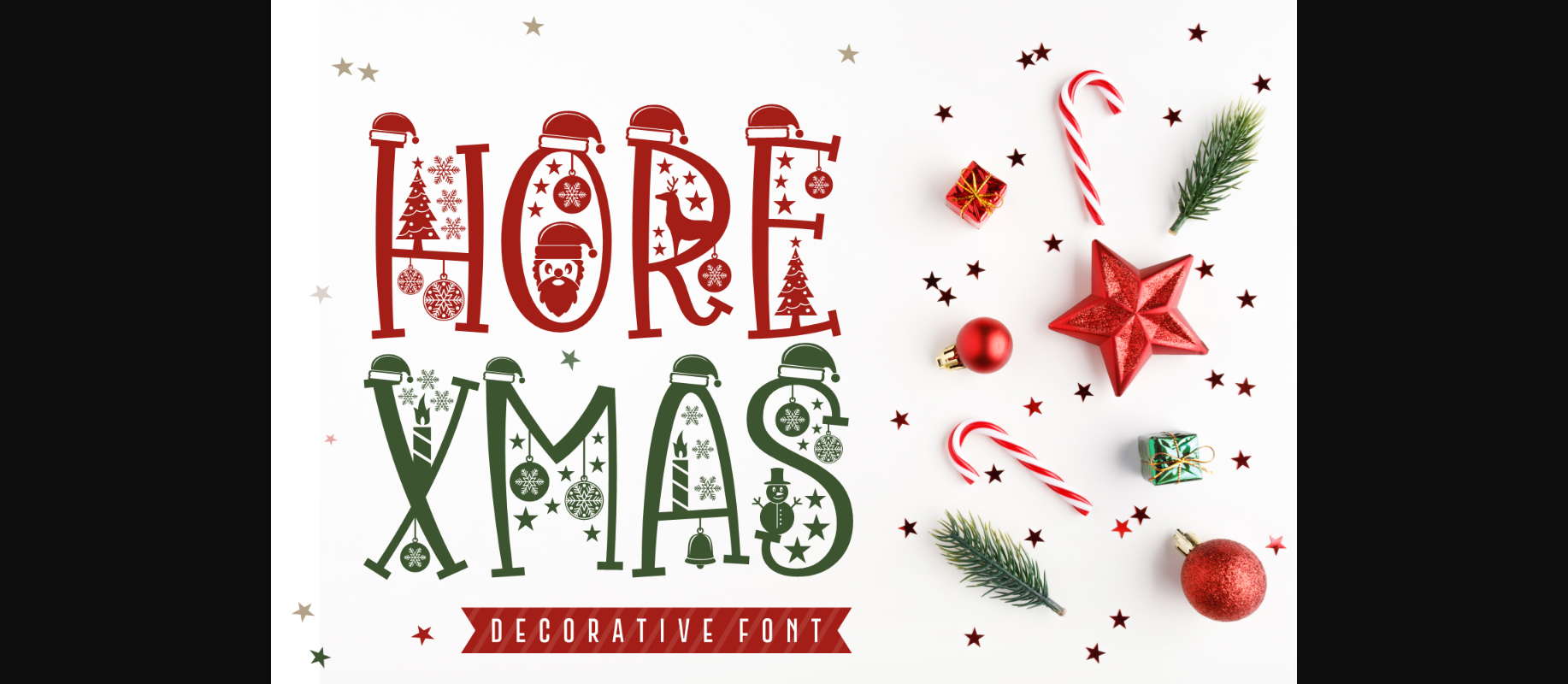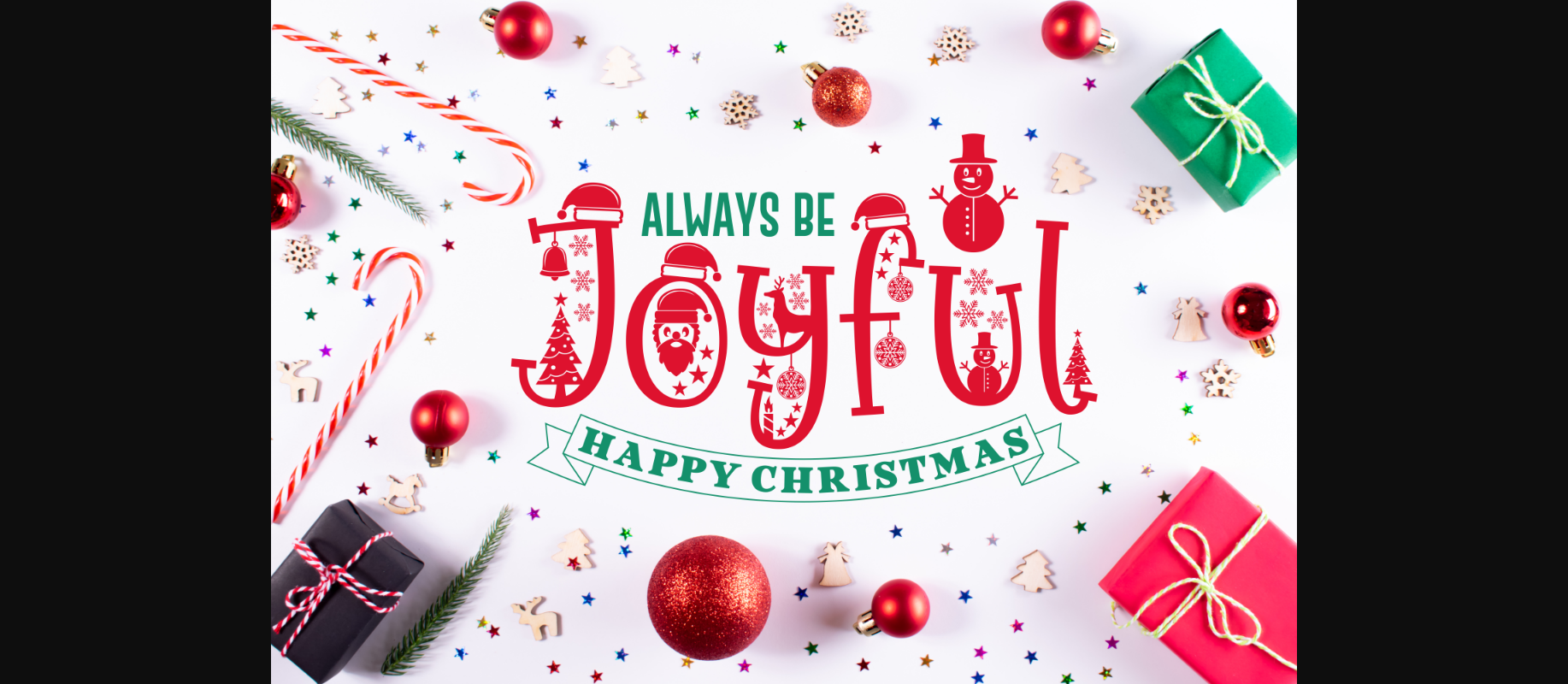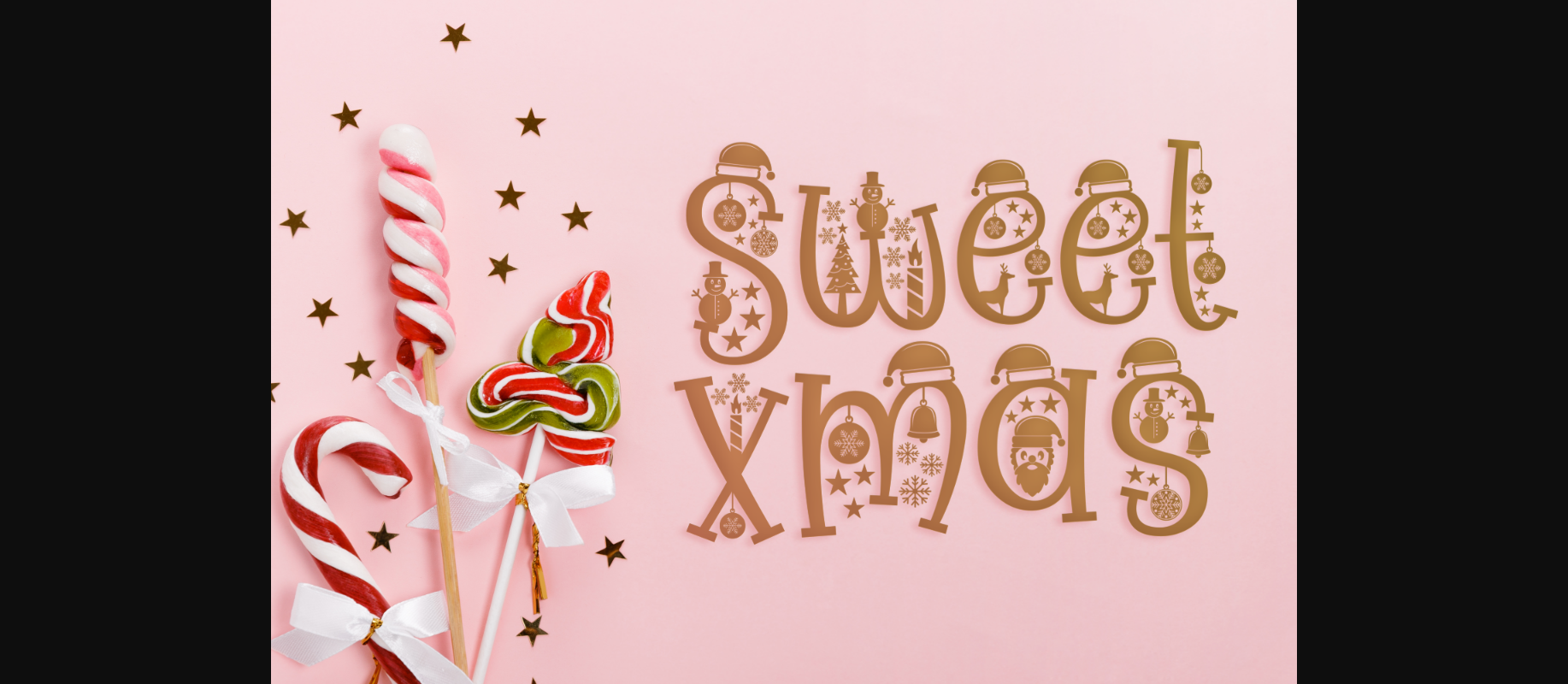
About Hore Xmas Font
Hore/Hooray Xmas is a festive and highly detailed decorative font. Fall for its ravishing style just in time to celebrate Christmas and use it to create gorgeous invitations, beautiful stationary art, eye-catching social media posts, and much more! Hooray, Christmas is just around the corner.